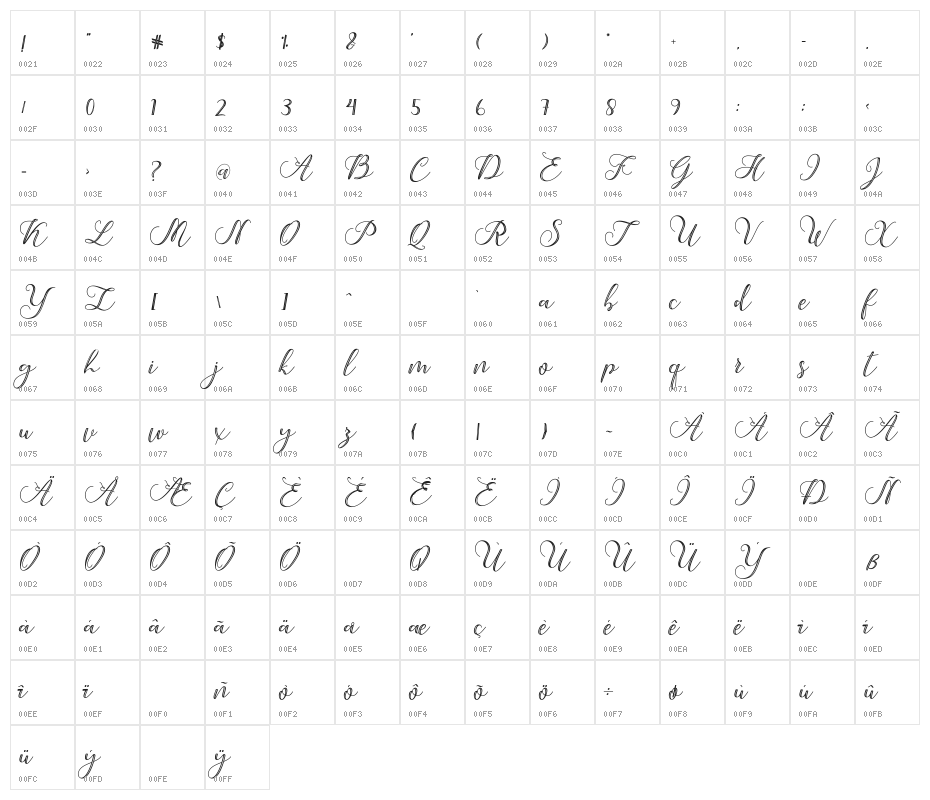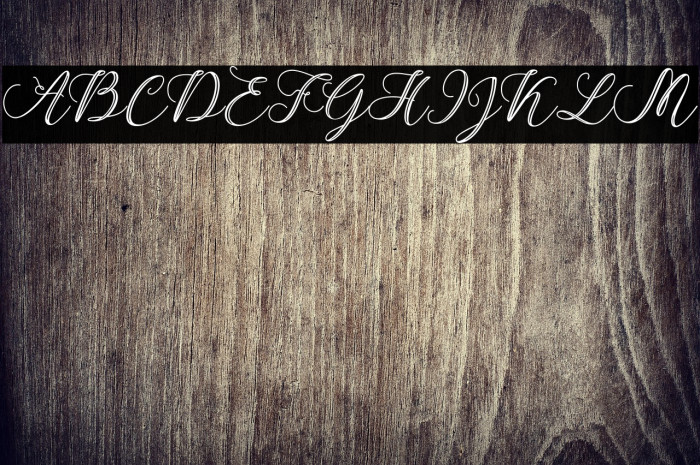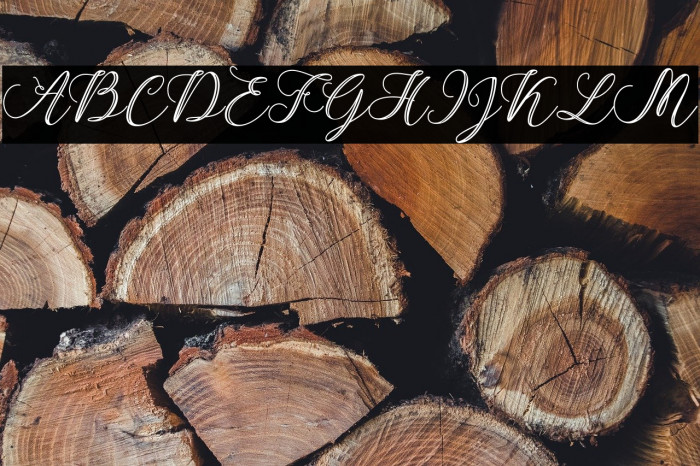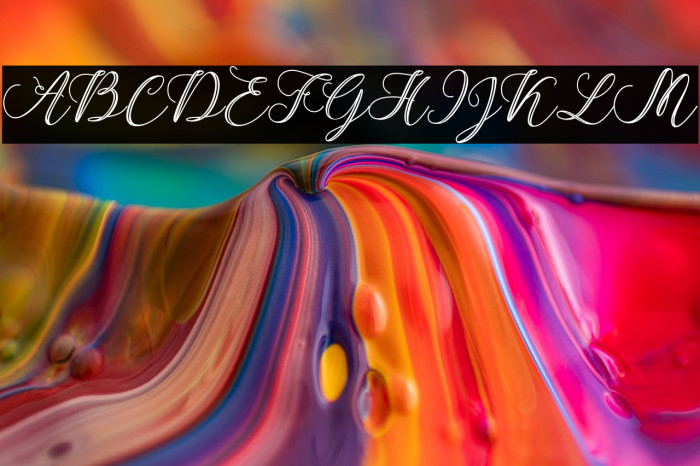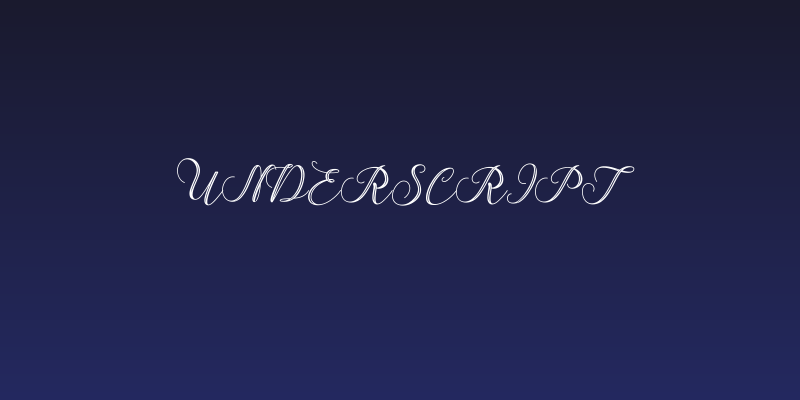
UnderScript Font
UnderScript Description
This elegant script font features a flowing, cursive style with intricate loops and swashes, giving it a sophisticated and artistic appearance. The uppercase letters are particularly ornate, with flourishes that extend beyond the baseline, while the lowercase letters maintain a smooth, connected flow. The numerals and special characters complement the overall design, maintaining the same fluidity and grace. This font is ideal for projects that require a touch of elegance and refinement, such as wedding invitations, greeting cards, and upscale branding.
| Overall Style | Elegant |
| Use Case | Headlines, Invitations, Branding |
| Proposed Projects | Wedding invitations, greeting cards, upscale branding, and elegant signage. |